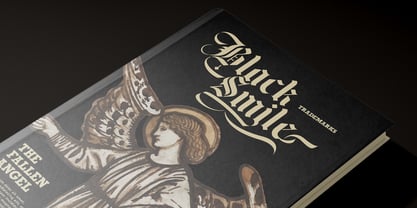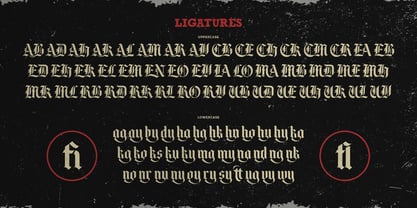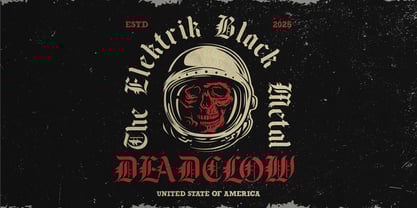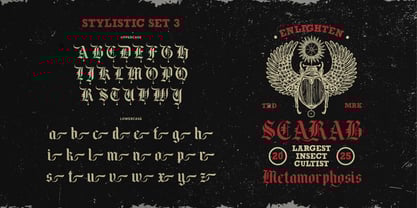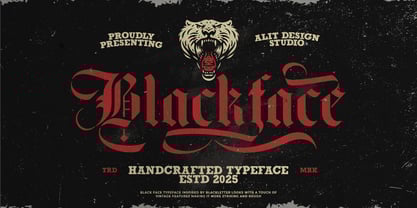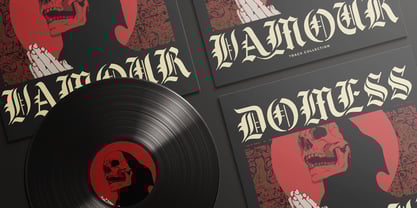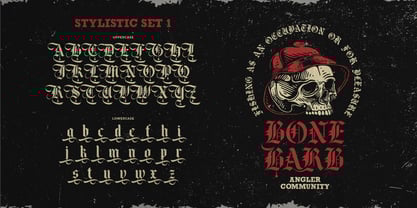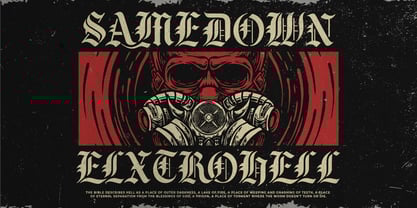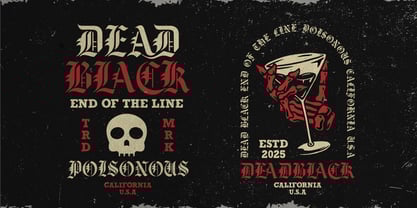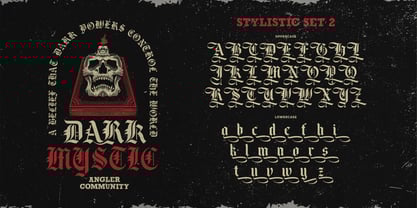
Black Face
Black Face – A Gothic Stencil Blackletter Typeface
Unleash the power of Black Face, a meticulously crafted blackletter stencil typeface that blends historical elegance with modern boldness. This font is designed for creators who dare to stand out—whether you’re designing tattoos, branding, posters, album covers, or apparel.
With its sharp, angular strokes and rugged stencil cuts, Black Face exudes strength, rebellion, and timeless gothic charm. Each letter is expertly detailed, balancing the intricacy of medieval calligraphy with the industrial aesthetics of stencil typography.
✦ Dramatic Blackletter Style
Inspired by medieval European manuscripts, Black Face features bold, pointed letterforms with intricate swashes and refined details, making it perfect for tattoo designs, gothic branding, and vintage themes.
✦ Stencil Aesthetic for a Rugged Edge
The stencil cutouts give Black Face a unique, industrial feel, making it ideal for grunge, punk, and streetwear-inspired designs while maintaining its gothic roots.
✦ Extensive Glyph Collection (803 Characters!)
Black Face includes a massive 803-glyph set, offering endless creative possibilities:
✔ Uppercase & Lowercase Letters – Classic blackletter forms with modern stencil adaptation
✔ Alternates & Stylistic Sets – Multiple variations of each character for customization
✔ Ornamental Swashes – Elegant flourishes to add gothic sophistication
✔ Ligatures – Smooth letter combinations for seamless typography
✔ Numerals & Punctuation – Fully functional for all design needs
✔ Symbols & Special Characters – Enhance your designs with extra decorative elements
✔ Multilingual Support – Covers Latin-based languages for global usability